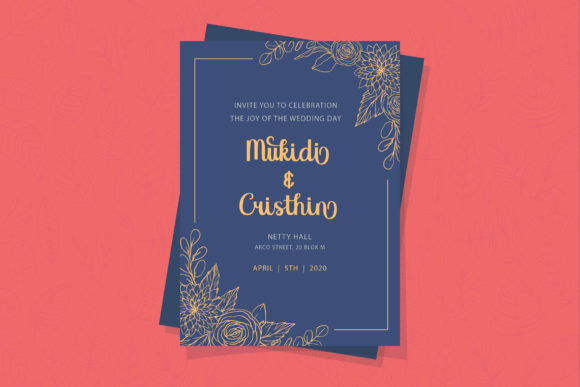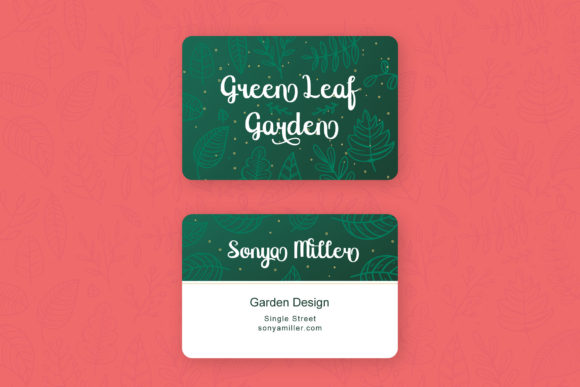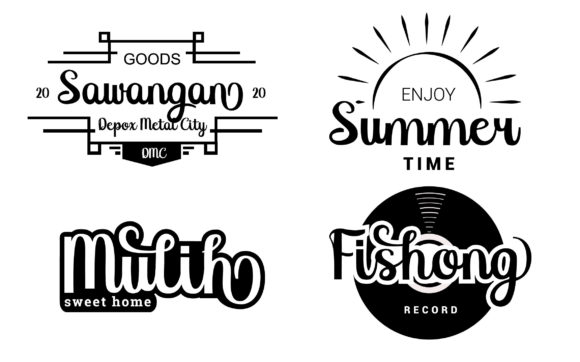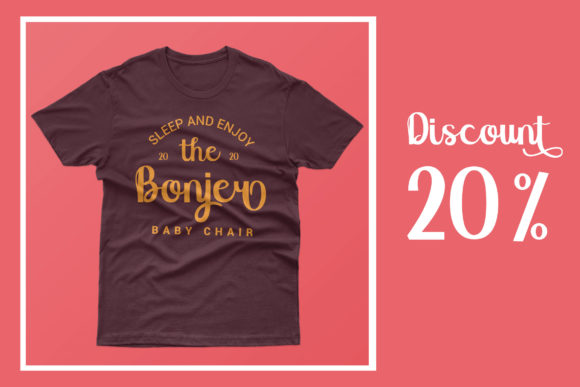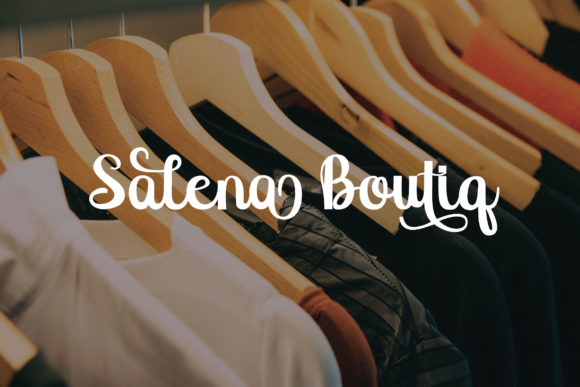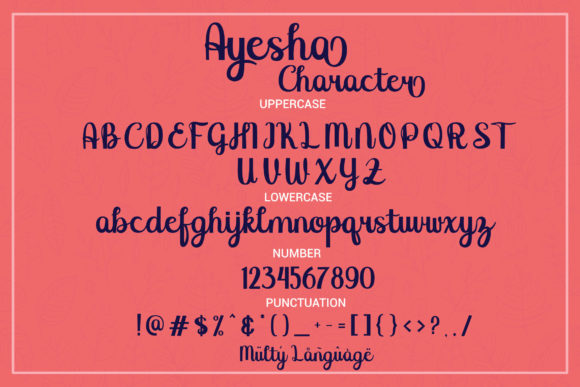
Ayesha Font: Elevate Your Designs with Elegance and Sophistication
Ayesha Font is a stunning script font that has been making waves in the design community with its modern and classy look. This beautiful and elegant font is perfect for designers and crafters looking to add a touch of sophistication to their work. Whether you’re creating logos, branding materials, invitations, social media posts, or any other design that needs a handwritten touch, Ayesha Font is an excellent choice.
What Makes Ayesha Font Special?
Ayesha Font stands out from other script fonts due to its unique blend of modernity and elegance. Its flowing lines and cursive strokes give it a beautiful, handwritten feel that’s perfect for designs that require a personal touch. The font’s classy look makes it suitable for high-end branding, luxury logos, and sophisticated marketing materials.
Key Features of Ayesha Font
- Modern and Classy Look: Ayesha Font boasts a sleek and contemporary design that’s perfect for modern brands and designers.
- Elegant Script Style: The font’s script style is both elegant and sophisticated, making it ideal for designs that require a touch of luxury.
- Handwritten Touch: Ayesha Font’s handwritten feel makes it perfect for designs that need a personal and human touch.
- Versatile: This font is suitable for a wide range of design applications, from logos and branding to invitations and social media posts.
Use Cases for Ayesha Font
Ayesha Font is a versatile font that can be used in various design projects. Here are some of the most popular use cases:
- Logos and Branding: Create stunning logos and branding materials that exude elegance and sophistication.
- Invitations and Stationery: Add a touch of luxury to your invitations, wedding cards, and stationery with Ayesha Font.
- Social Media Posts: Elevate your social media posts with Ayesha Font’s elegant and modern look.
- Marketing Materials: Use Ayesha Font to create sophisticated marketing materials, such as brochures, flyers, and posters.
Tips for Using Ayesha Font
To get the most out of Ayesha Font, here are some tips to keep in mind:
- Pair with Simple Fonts: Pair Ayesha Font with simple fonts to create a beautiful contrast and make your design stand out.
- Use for Headlines and Titles: Use Ayesha Font for headlines and titles to add a touch of elegance and sophistication.
- Experiment with Colors: Experiment with different colors to find the perfect combination that complements Ayesha Font.
Ayesha Font is a beautiful and elegant script font that’s perfect for designers and crafters looking to add a touch of sophistication to their work. Its modern and classy look makes it suitable for a wide range of design applications, from logos and branding to invitations and social media posts. With its versatile features and elegant design, Ayesha Font is an excellent choice for anyone looking to elevate their designs.